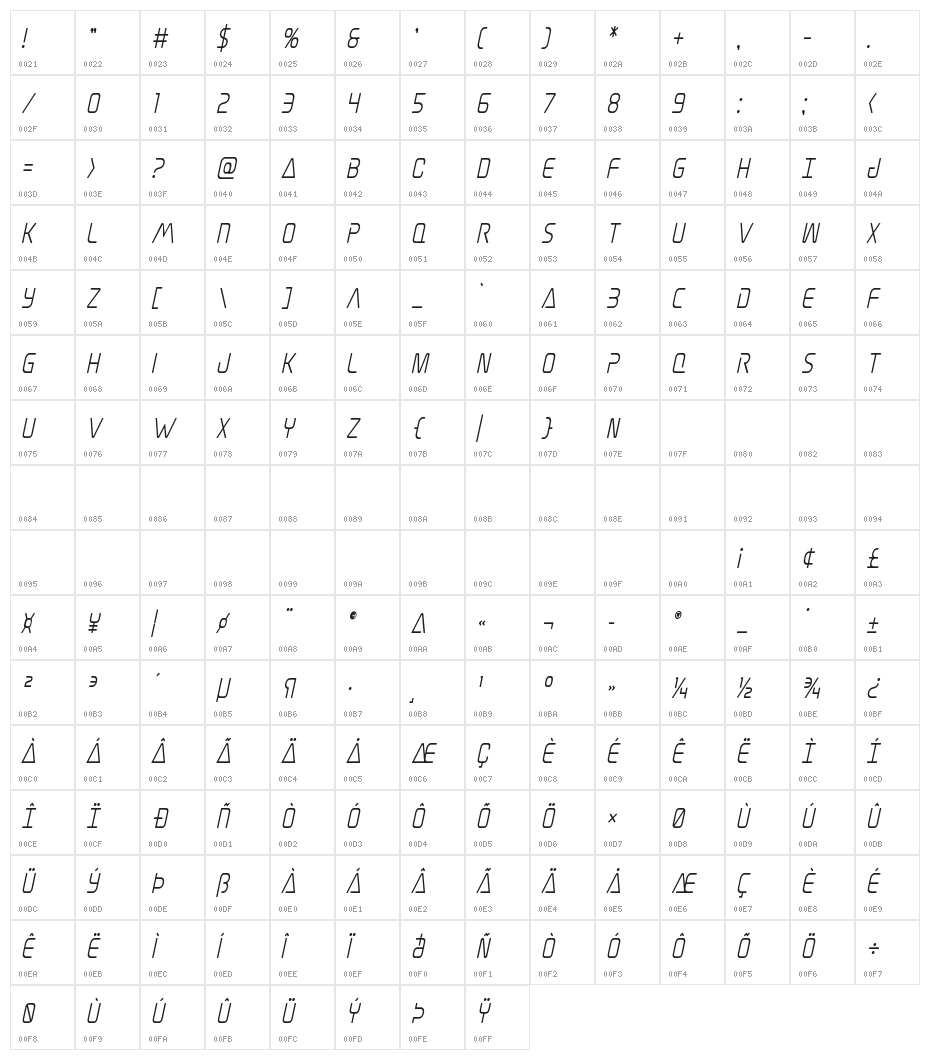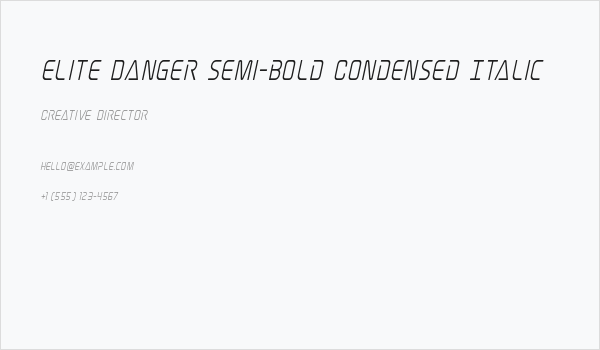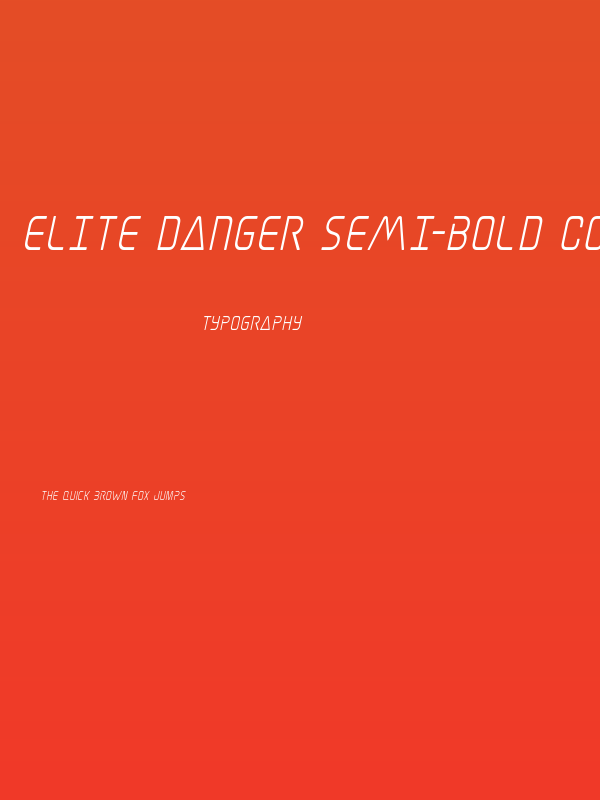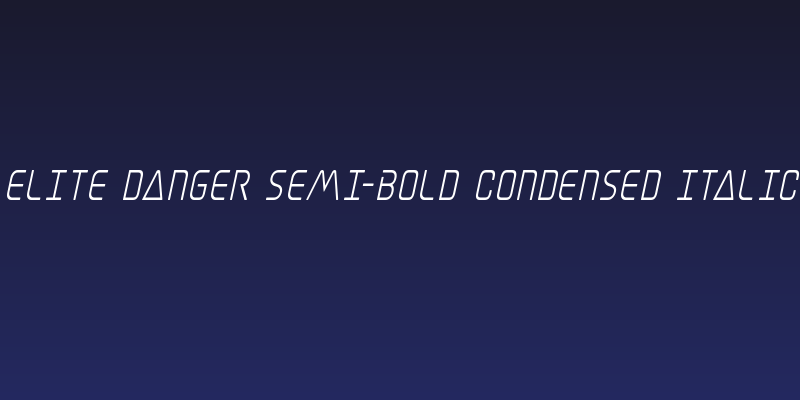
Elite Danger Semi-Bold Condensed Italic Font
Elite Danger Semi-Bold Condensed Italic Description
This font features a sleek, modern design with a semi-bold weight and condensed width. The italic style adds a dynamic and forward-leaning appearance, making it ideal for conveying a sense of motion and urgency. The characters are slightly elongated, contributing to a streamlined look. The spacing between characters is tight, enhancing the compactness of the text. The font maintains a consistent stroke thickness, offering medium contrast that ensures readability while retaining a stylish edge. Its geometric shapes and clean lines make it suitable for contemporary design projects.
| Proposed Projects | Ideal for branding, advertising, and editorial design where a modern and dynamic look is desired. |